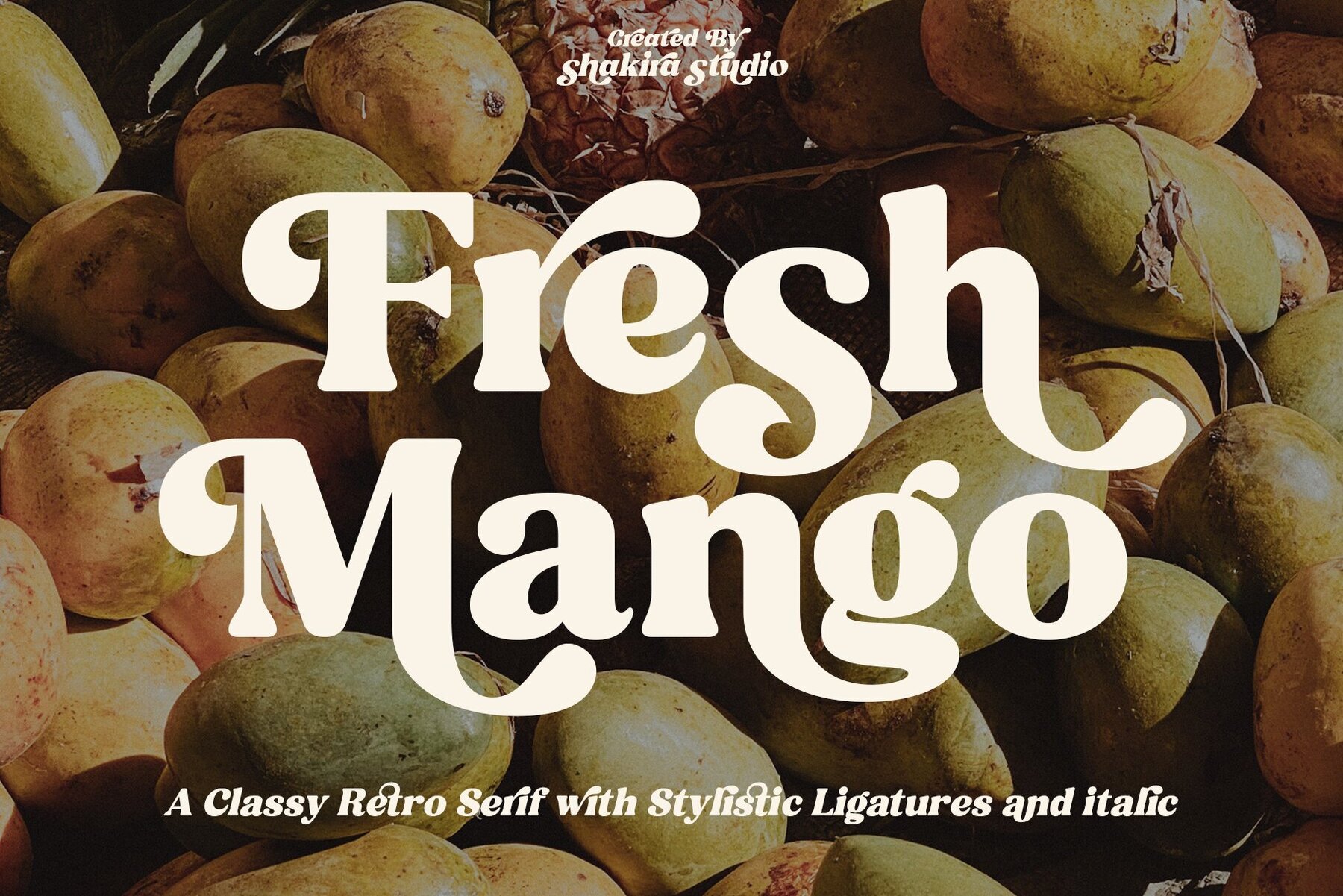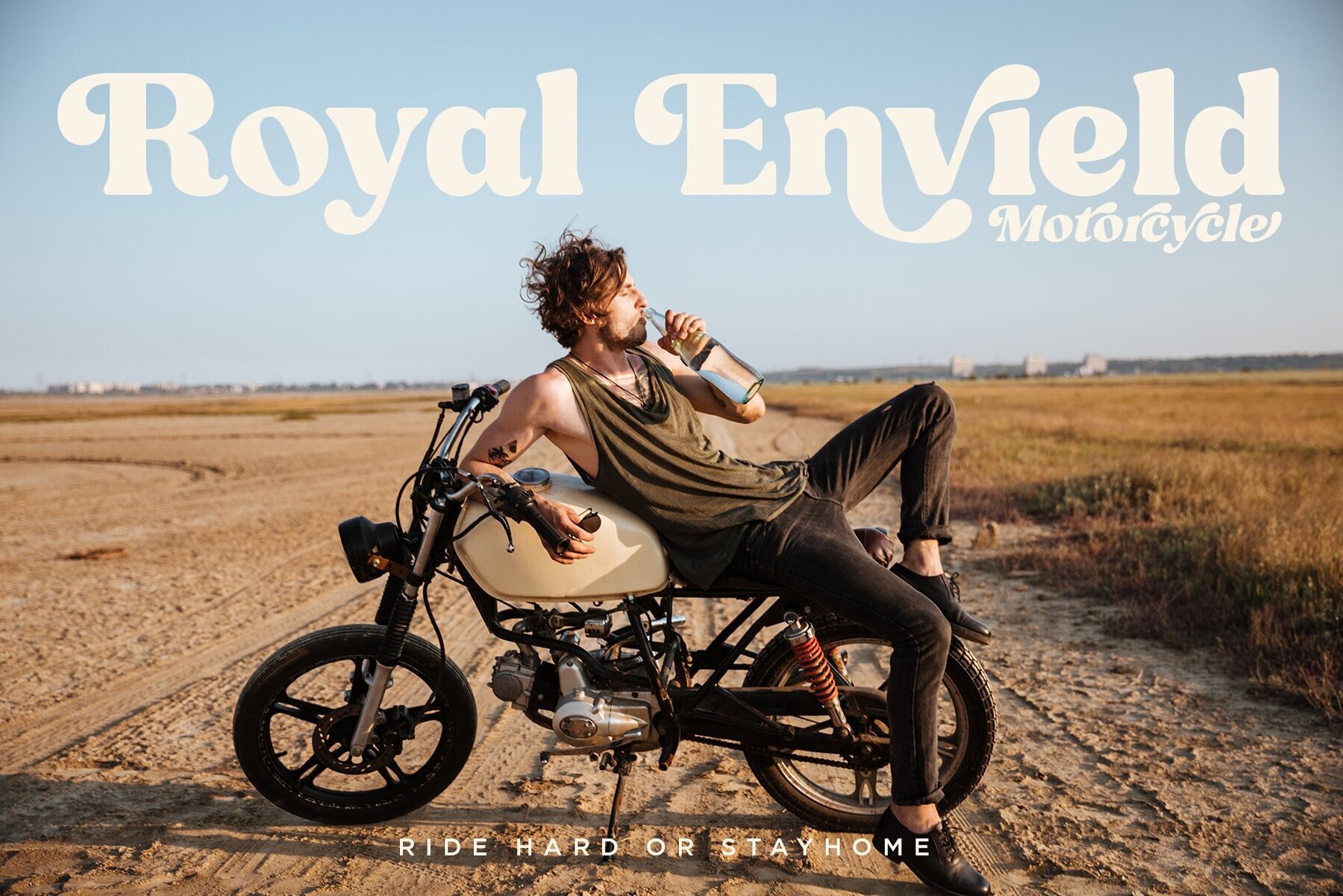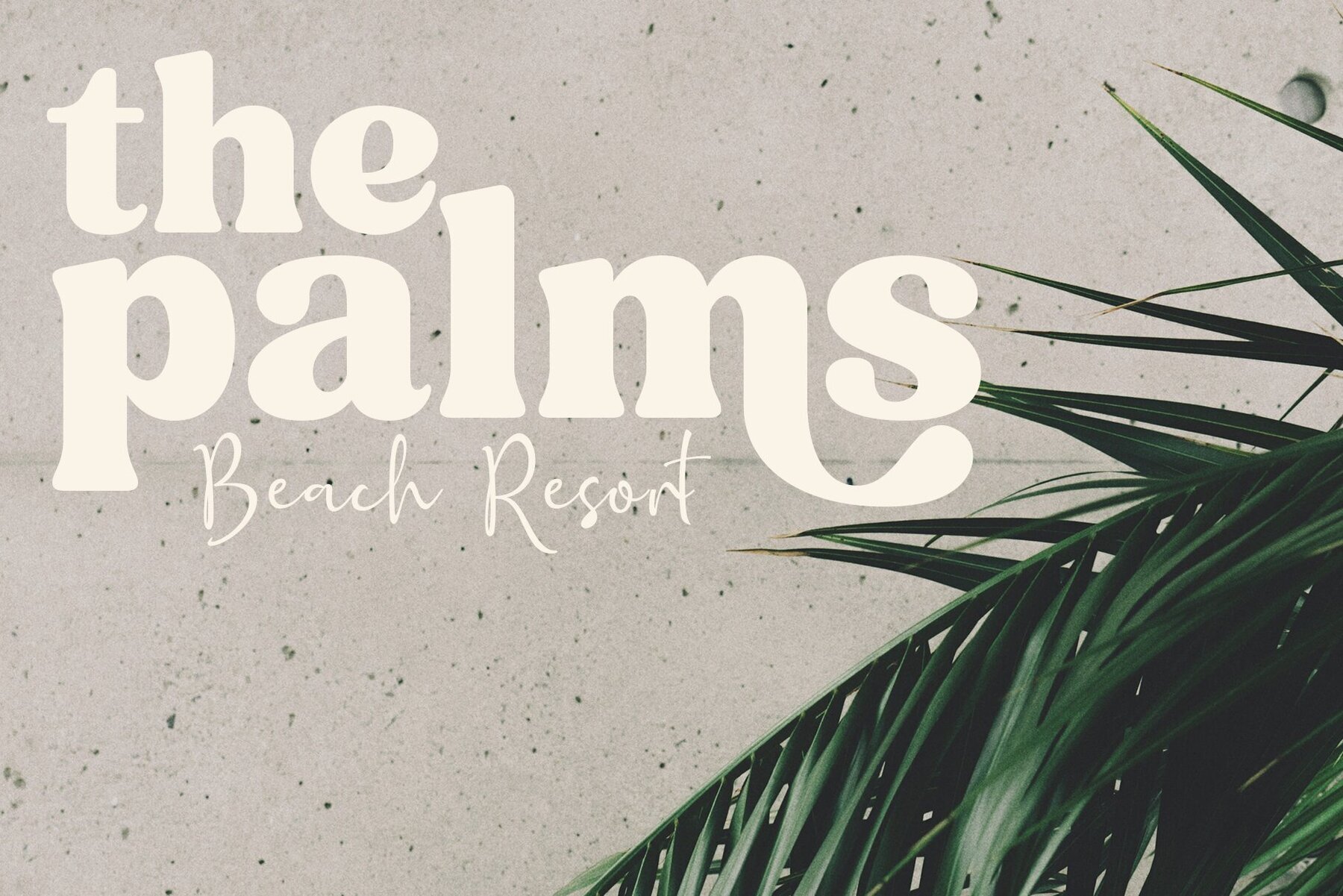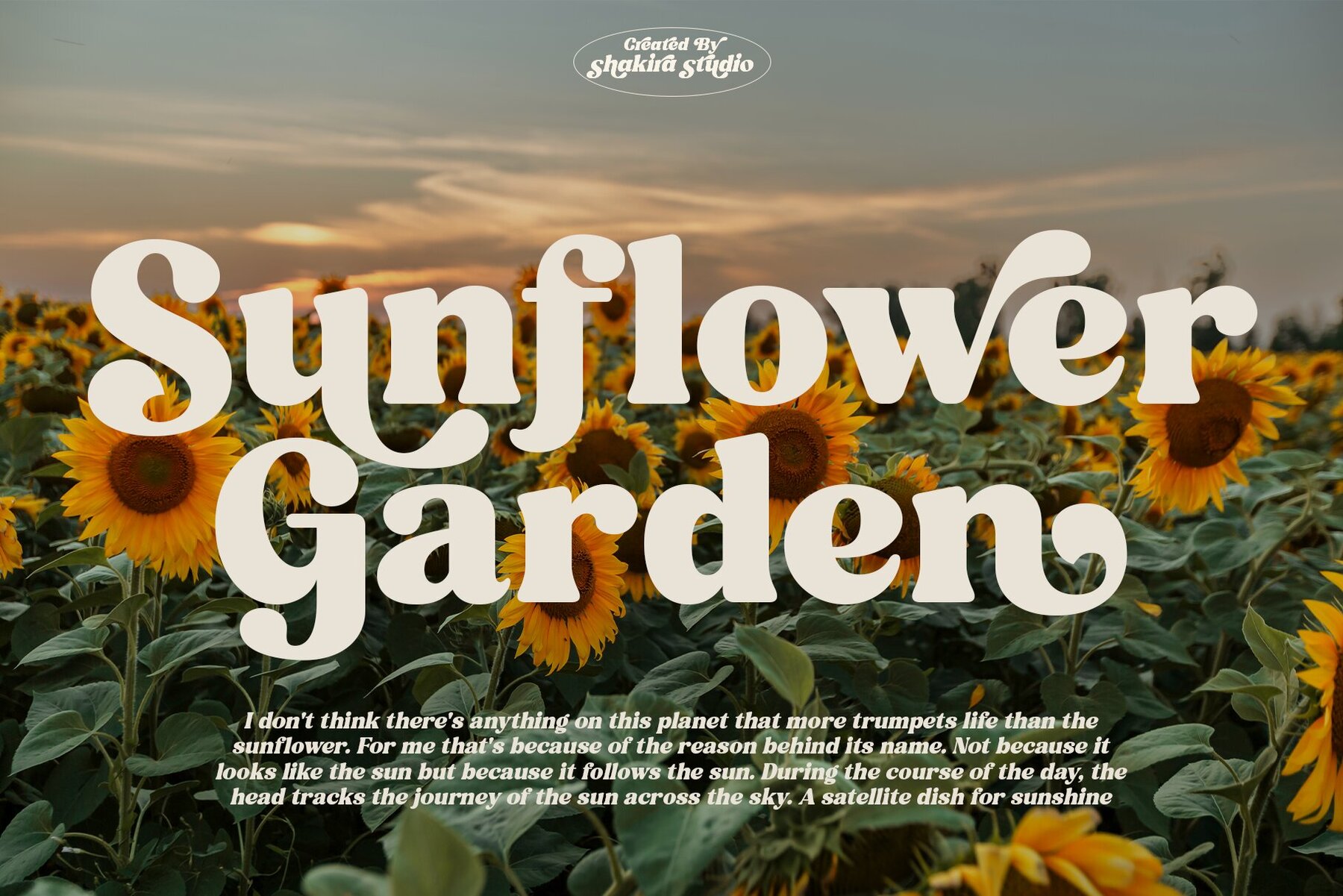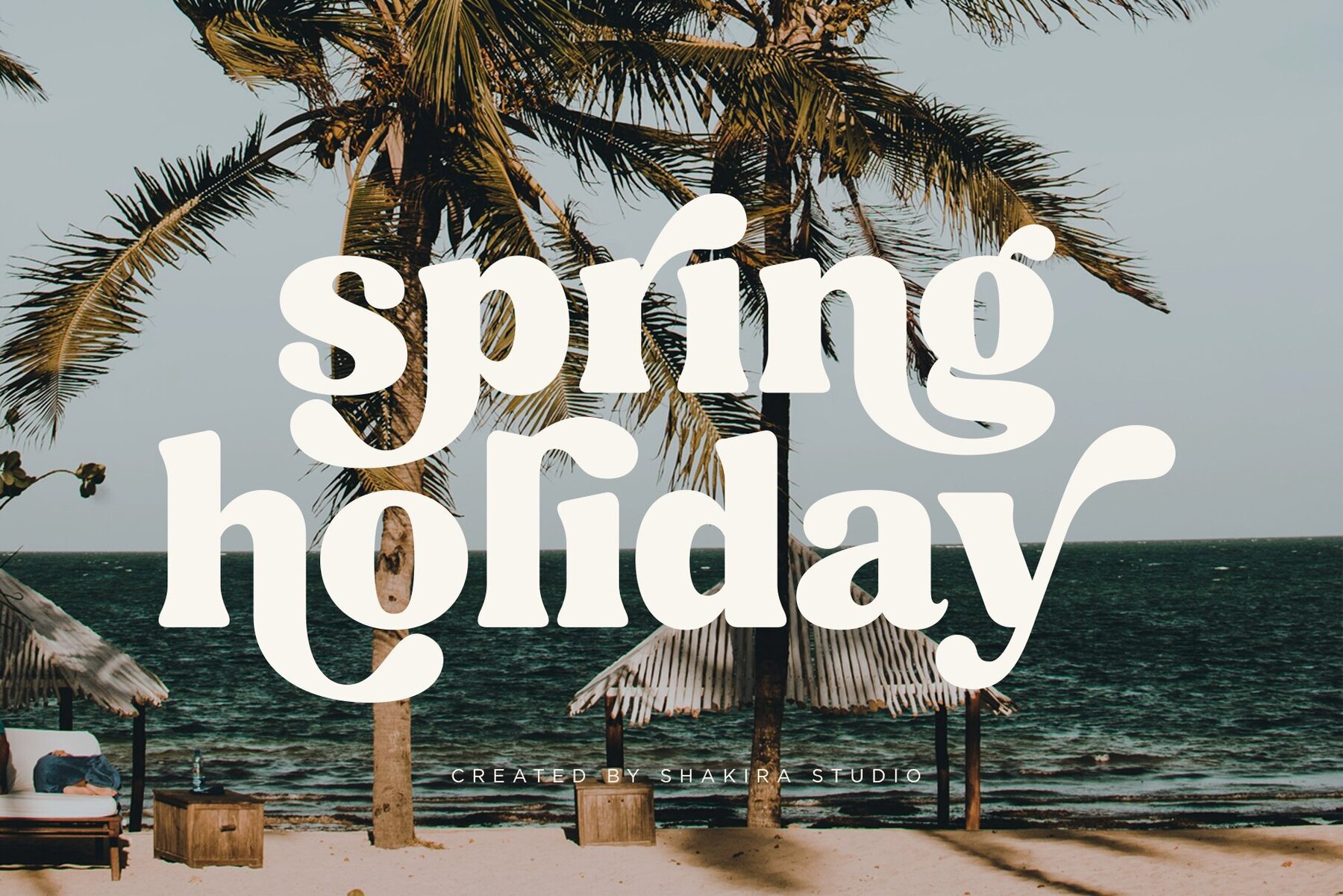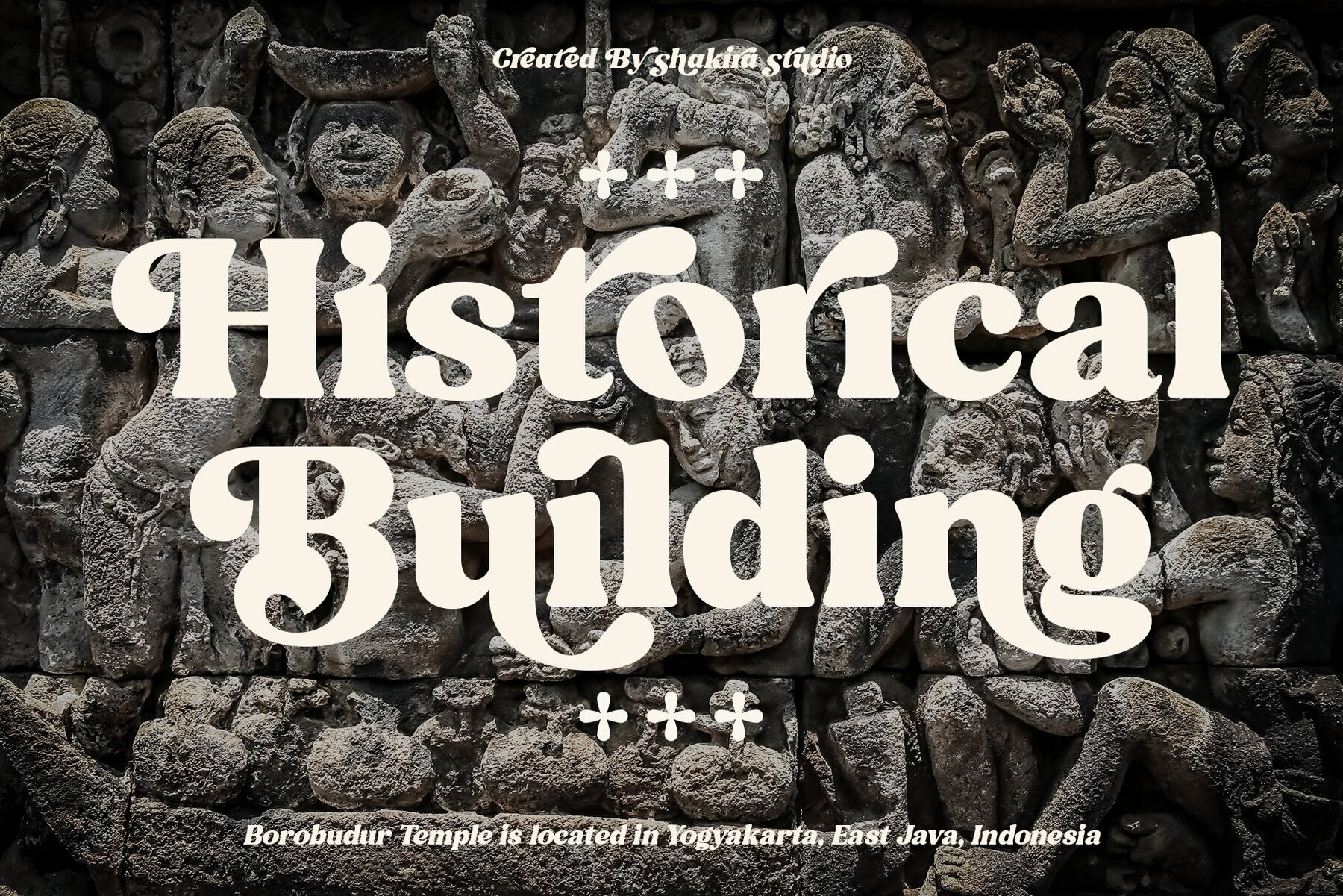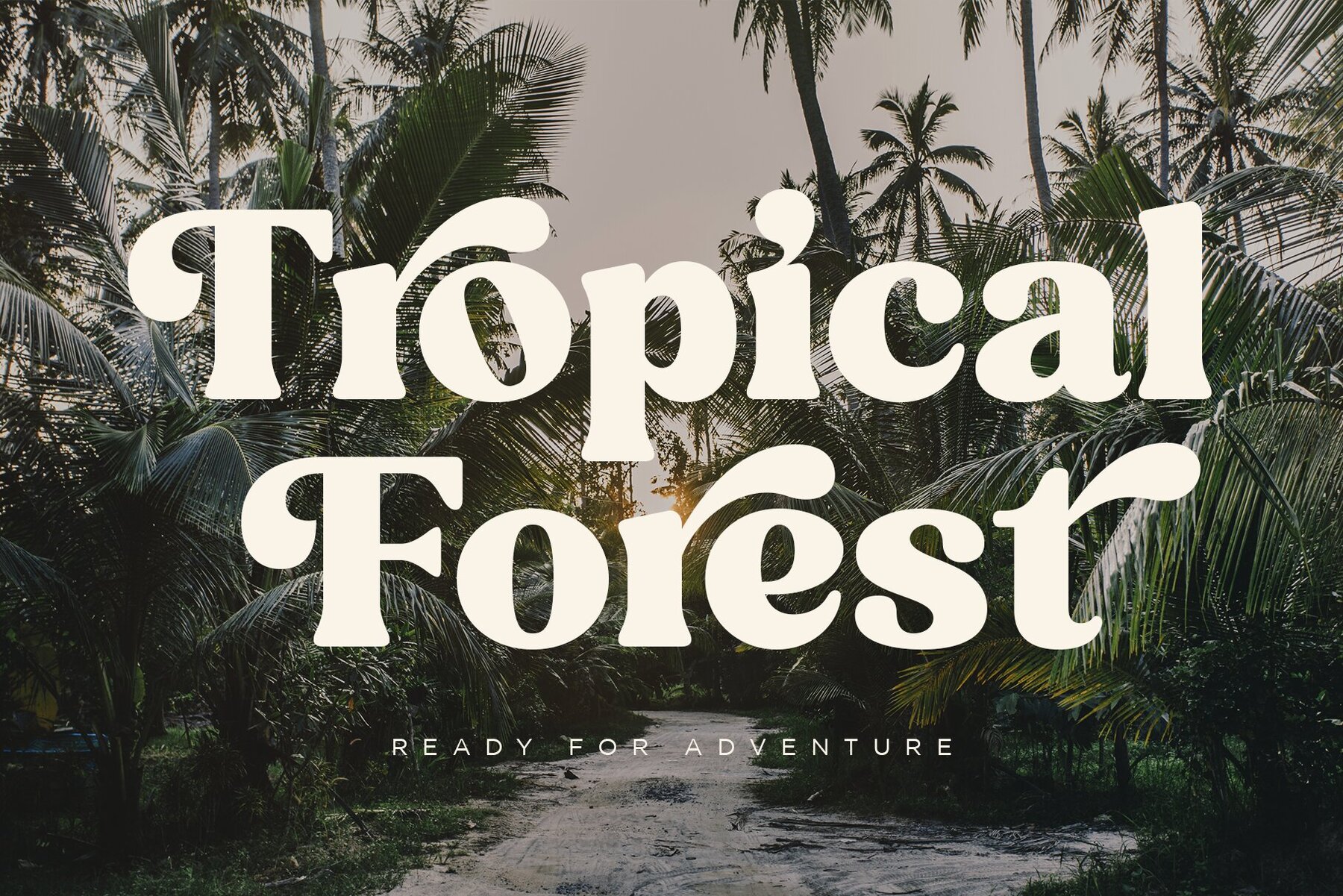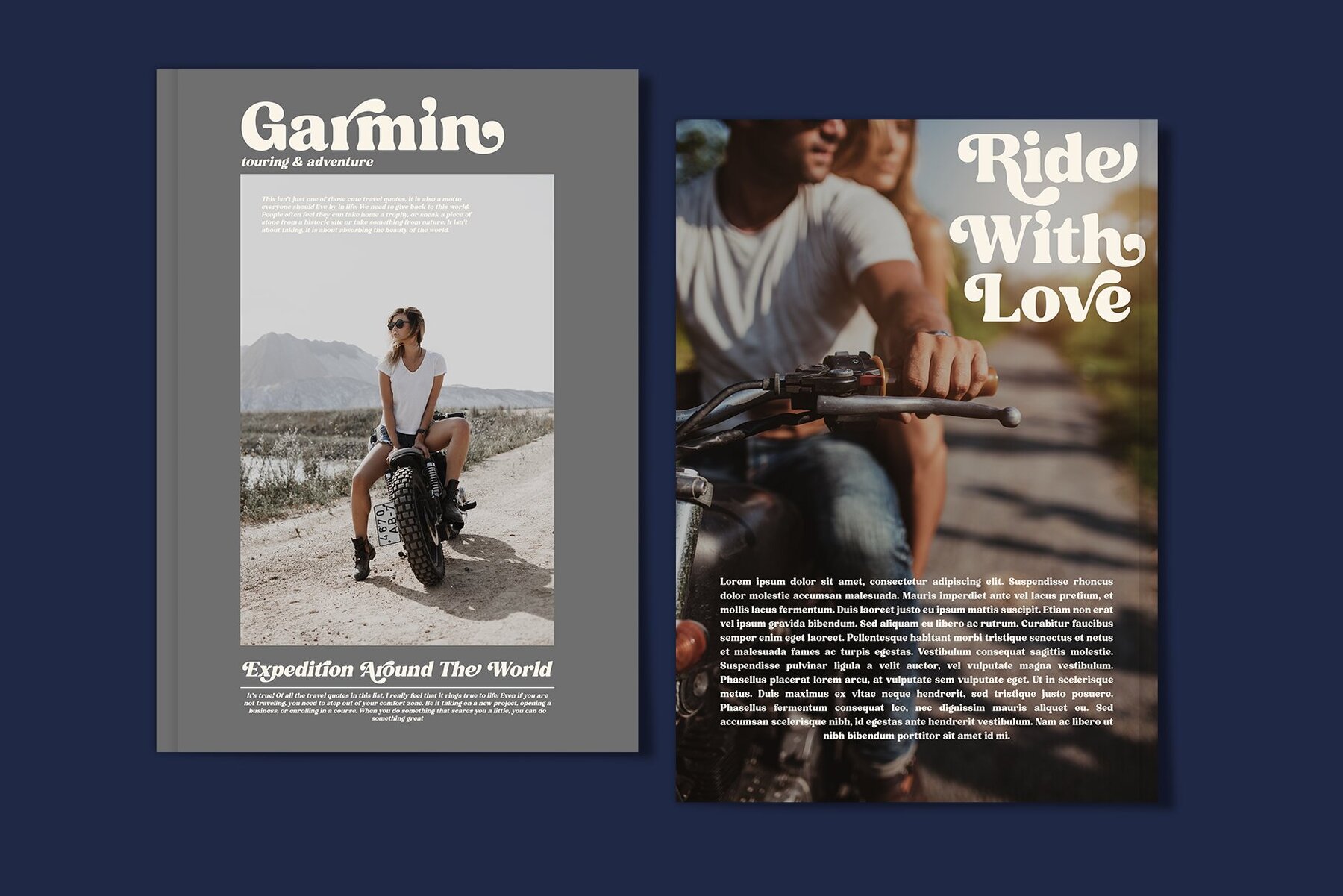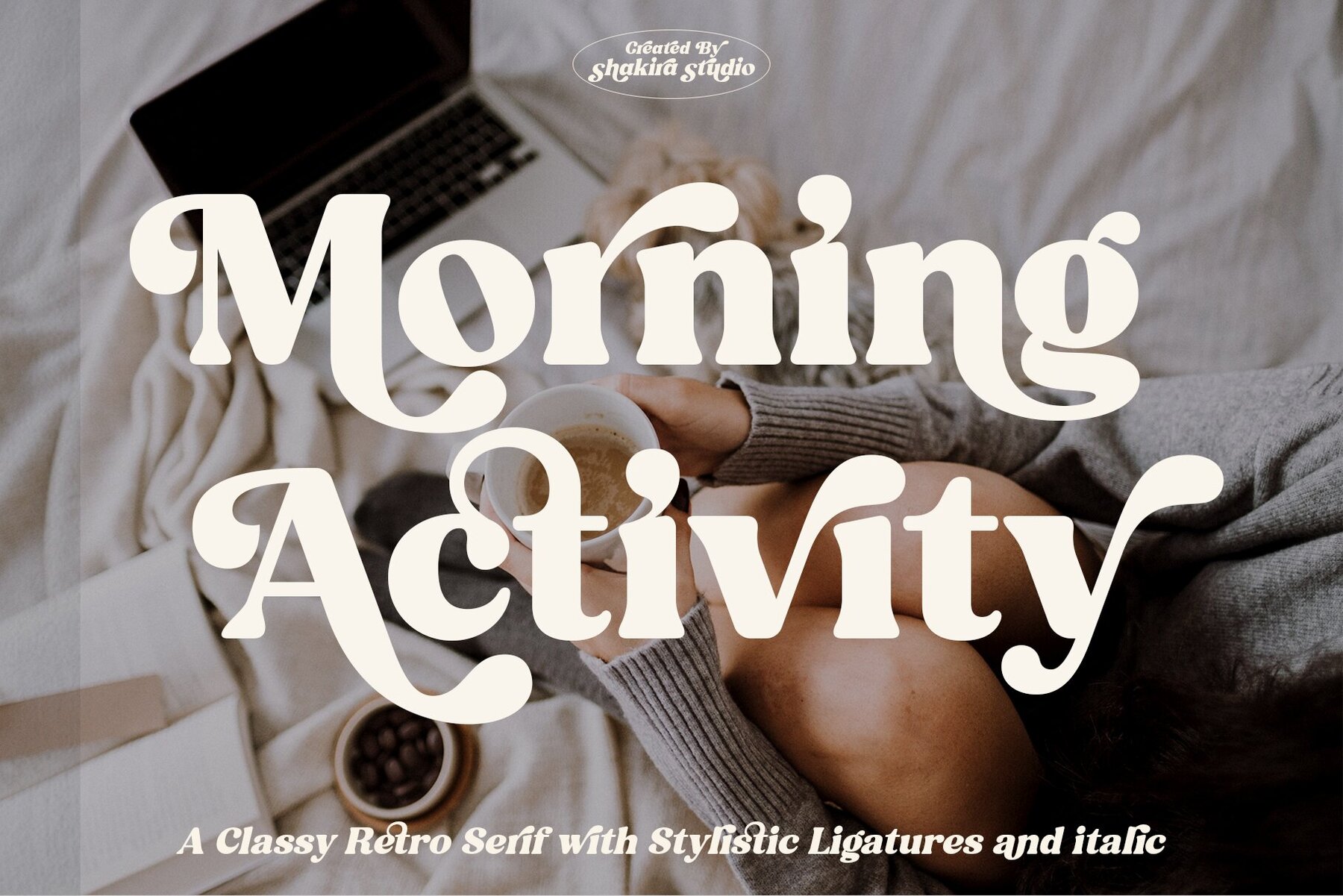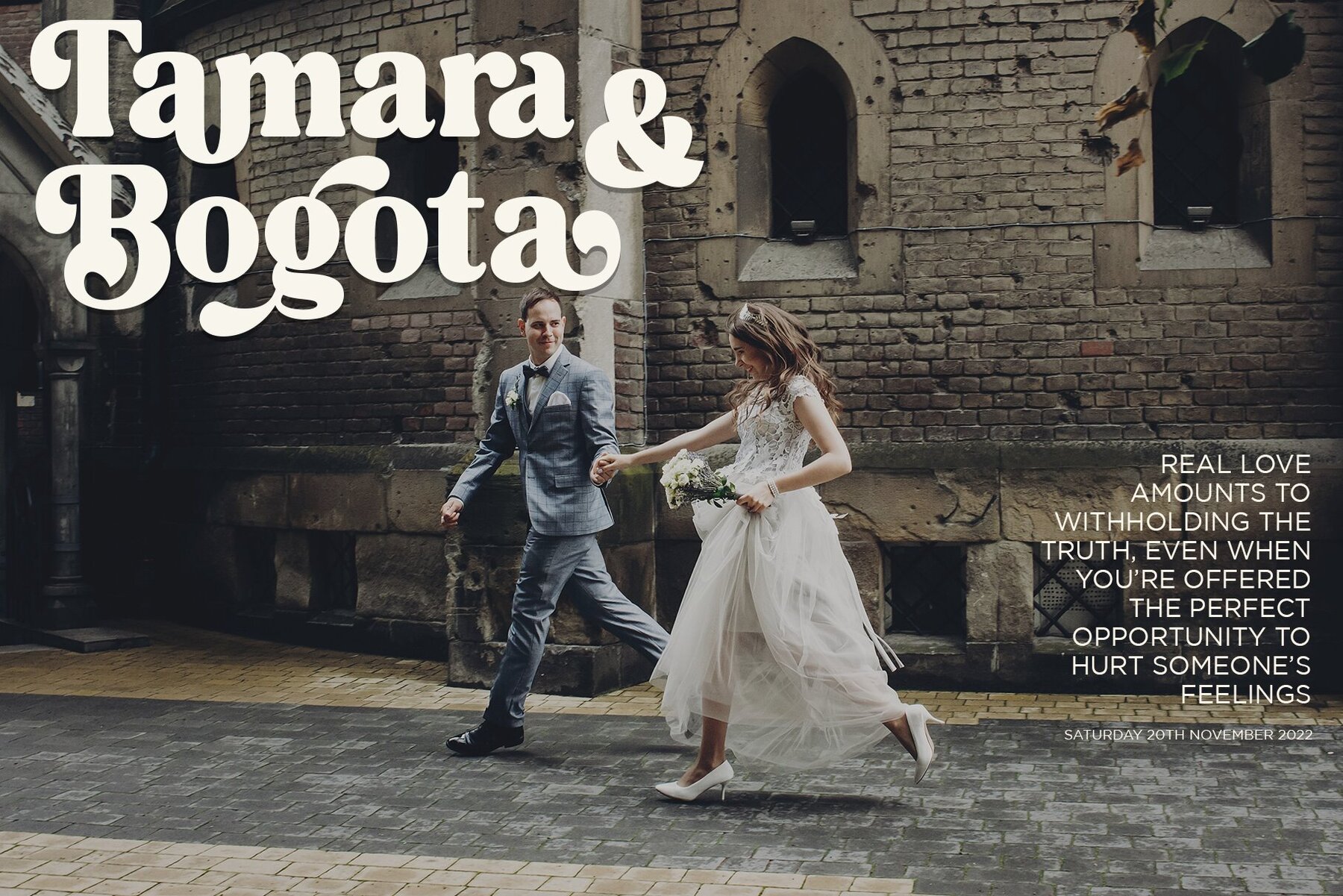
Fresh Mango Font
Fresh Mango is a font that's perfect for creating bold, gorgeous headlines and elegant designs with a vintage flair. Its contrasting lines and curved terminals give it a sleek and elegant look that's perfect for logos, holiday cards, wedding invitations, quotes, advertisements, and more.
Fresh Mango is a retro serif font that's perfect for vintage designs. Its unique character and vintage flair make it ideal for designs that require a touch of elegance and sophistication. This font is perfect for designers who want to create a unique and memorable look for their projects.
Fresh Mango comes with a full set of modern uppercase and lowercase letters, numerals, and punctuation, as well as multilingual symbols. This feature ensures that it's a font that's both functional and versatile, making it perfect for a wide range of projects.
Fresh Mango includes OpenType features like ligatures, alternate characters, and many others, giving you even more options to create unique and memorable designs. This feature makes it perfect for designs that require a high level of attention to detail, such as branding, advertising, and packaging.